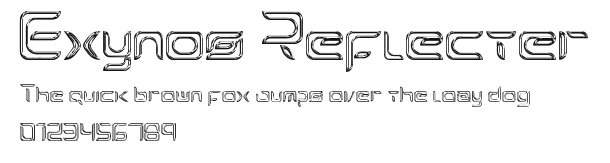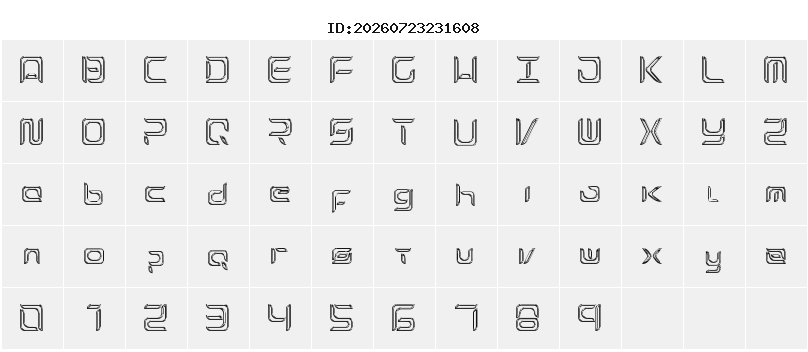
• Font Name: Exynos Reflecter
• Full Font Name: Exynos Reflecter
• Version: Version 1.00 August 13, 2013, initial release
About Exynos Reflecter.ttf
Exynos Reflecter.ttf is a modern, elegant sans-serif font designed for ultimate readability and visual harmony. Perfect for branding, headlines, web design, and print materials.